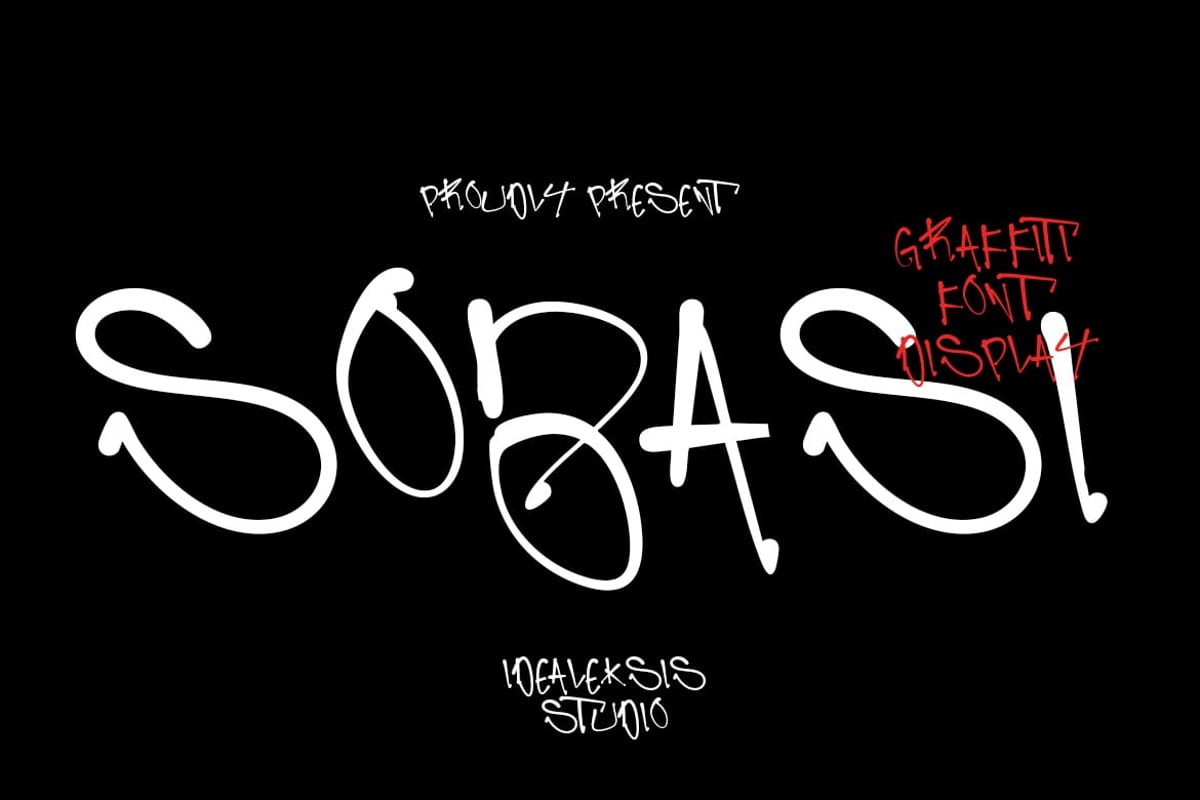
Sobasi - Graffiti Font
Make a bold statement with Sobasi, an authentic graffiti-inspired font that brings raw street energy to your designs.
This all-caps decorative typeface captures the rebellious spirit of urban street art with its hand-drawn aesthetic and dynamic character forms. Perfect for projects that demand an edgy, contemporary look with authentic underground appeal.
- Uppercase characters only
- Custom ligatures for natural flow
- Complete numerals and punctuation